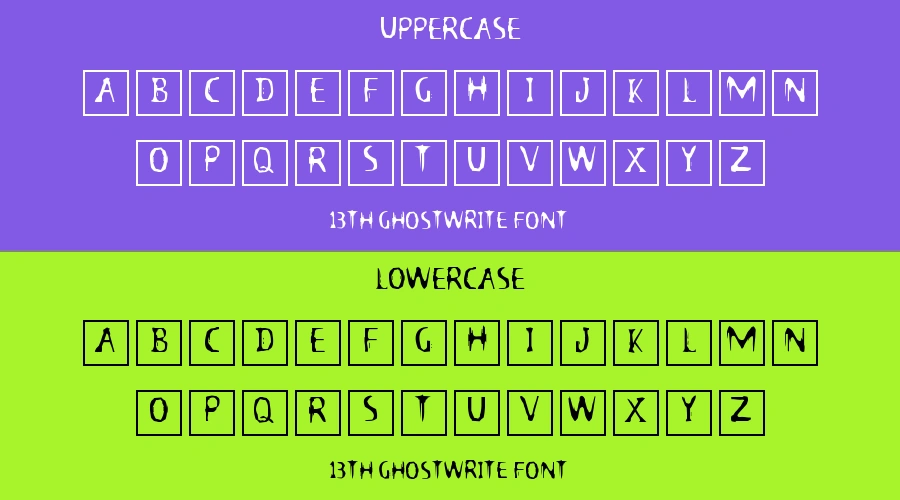
About 13Th Ghostwrite Font
Designed with precision, 13Th Ghostwrite Font merges precise joints with craftsmanship in every character. This versatility makes it particularly effective for film titles, where craftsmanship and classic beauty directly impact communication quality. Each letterform demonstrates meticulous craftsmanship.
Technical excellence shines through elements like curved brackets and terminal forms, enhancing typographic versatility. In hero imagery settings, 13Th Ghostwrite Font proves its worth through superior rendering. The thoughtful execution of ascender height and market positioning ensures professional results.